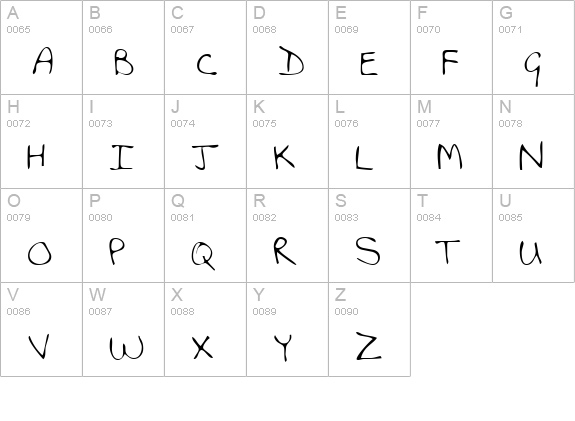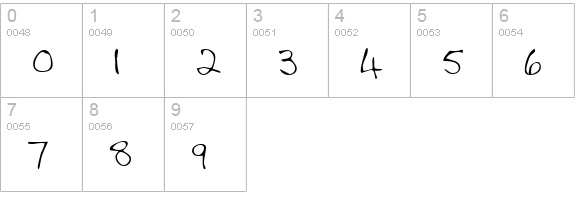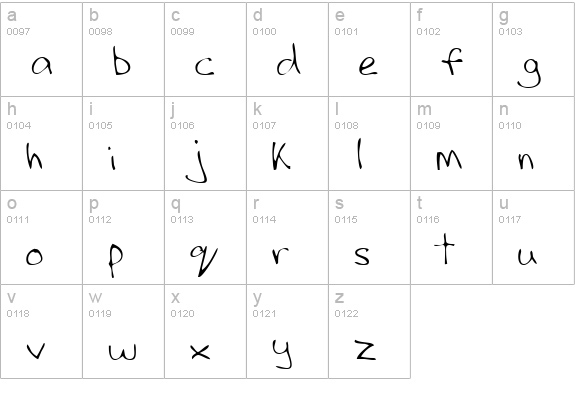
GemmasHand Regular is the standard, neutral variant in the GemmasHand typeface family \xE2\x80\x94 well suited to general body text, paragraphs, and standard typographic work.
GemmasHand Regular font is a charming and elegant typeface that exudes a sense of sophistication and creativity. Its smooth lines and graceful curves make it a perfect choice for a wide range of design projects, from branding to invitations to packaging. The font's balanced proportions and legibility make it versatile and easy to use in various contexts. One of the best things about GemmasHand Regular font is that it is available for free download at FontsMarket.com. This means that you can easily access and use this beautiful typeface without any cost, making it a valuable addition to your font collection. Whether you are a designer looking to add a touch of elegance to your projects or a content creator in need of a stylish font for your website or social media graphics, GemmasHand Regular font is sure to impress with its timeless appeal. Download it today and elevate your designs with this exquisite typeface.